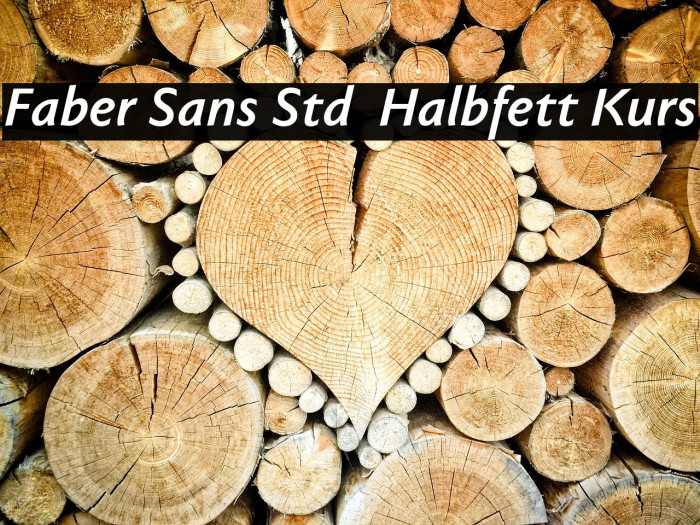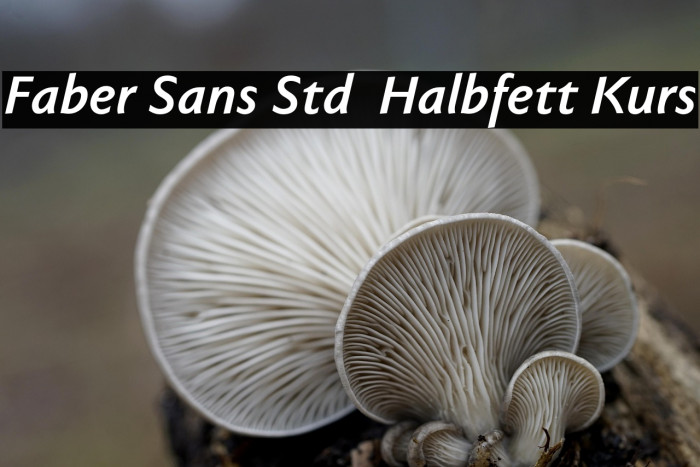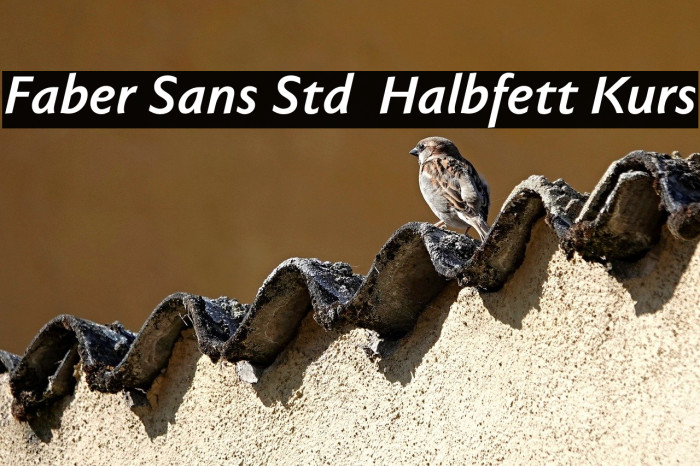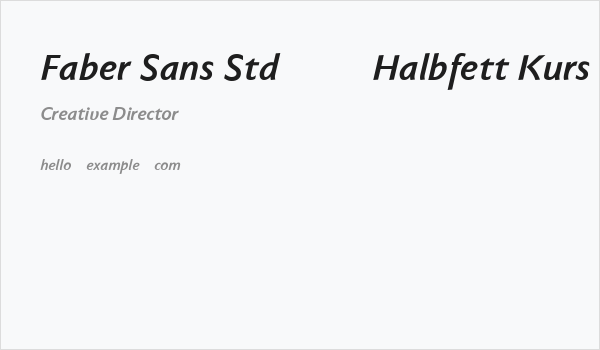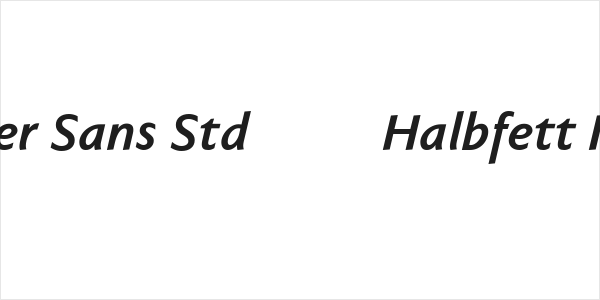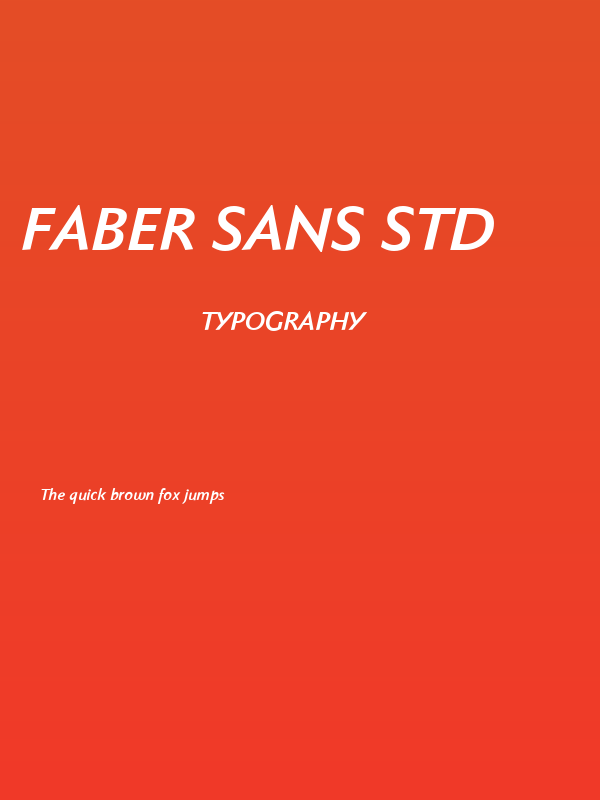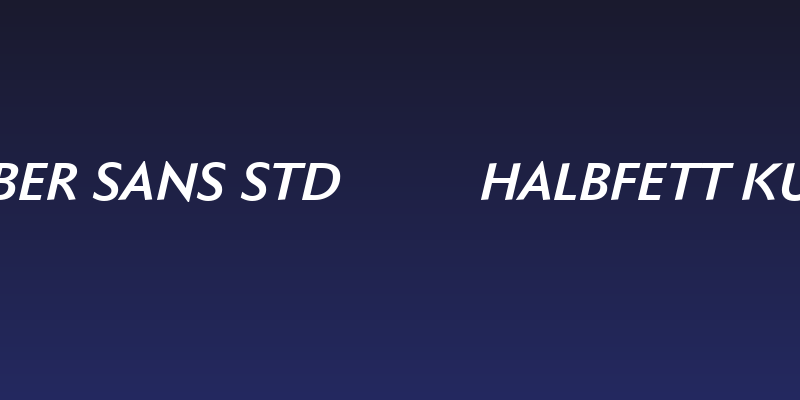
Faber Sans Std 76 Halbfett Kurs Font
Faber Sans Std 76 Halbfett Kurs Description
This typeface features a clean and modern sans-serif design with a slightly italicized style, giving it a dynamic and forward-leaning appearance. The strokes are consistent and smooth, providing a balanced and professional look. The uppercase and lowercase letters maintain a uniform height, enhancing readability. The font's structure is simple yet elegant, making it versatile for various design applications. The characters are well-spaced, ensuring clarity and legibility even at smaller sizes. Its bold weight adds emphasis and strength, making it suitable for impactful headlines and titles.
| Proposed Projects | Ideal for branding, advertising, and editorial design projects where a modern and professional look is desired. |